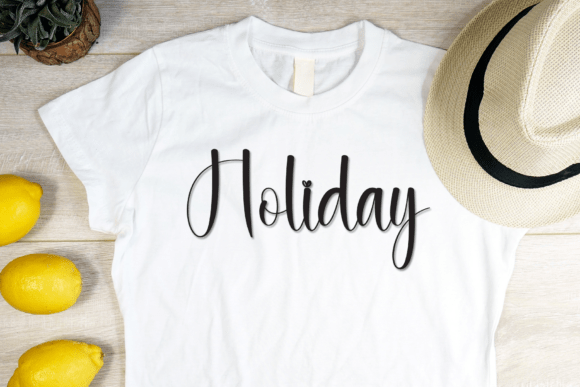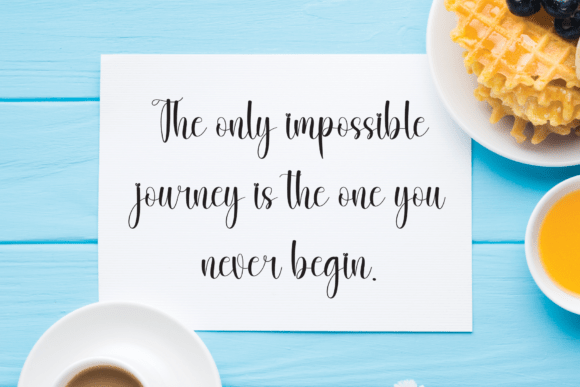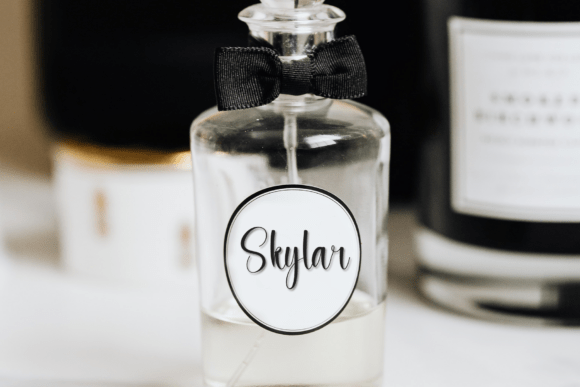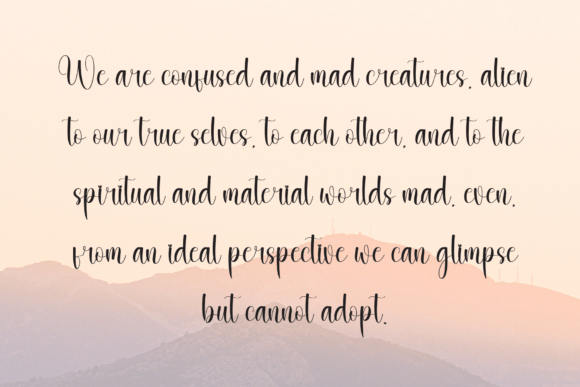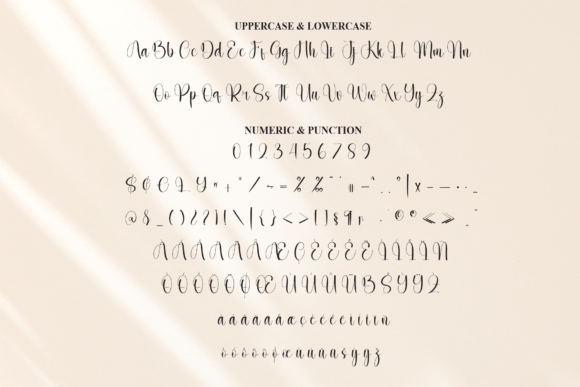
Introducing Family Font: A Delightful Handwritten Display Font
Are you looking for a font that can add a touch of warmth and friendliness to your design projects? Look no further than Family Font, a charming handwritten display font that is sure to capture the hearts of designers and crafters alike. With its unique and quirky allure, this font is perfect for creating heartfelt wedding invitations, personalized cards, and other designs that require a dash of whimsical charm.
The Perfect Blend of Playfulness and Elegance
Family Font is a carefully crafted font that strikes the perfect balance between playfulness and elegance. Its handwritten style is infused with a sense of fun and friendliness, making it ideal for designers who want to create designs that are both whimsical and sophisticated. Whether you’re working on a wedding invitation, a greeting card, or a packaging design, Family Font is sure to add a touch of personality and charm to your project.
Unique Characteristics of Family Font
So, what sets Family Font apart from other fonts? Here are a few of its unique characteristics:
• Handwritten style: Family Font has a beautiful, handwritten style that is both personal and inviting.
• Quirky allure: This font has a unique and quirky charm that is sure to capture the hearts of designers and crafters.
• Playful and elegant: Family Font strikes the perfect balance between playfulness and elegance, making it ideal for a wide range of design projects.
• Infused with warmth and friendliness: This font is infused with a sense of warmth and friendliness, making it perfect for creating designs that are both personal and inviting.
Uses for Family Font
Family Font is a versatile font that can be used for a wide range of design projects. Here are a few ideas to get you started:
• Wedding invitations: Family Font is perfect for creating beautiful and personalized wedding invitations that are sure to impress.
• Personalized cards: This font is ideal for creating personalized cards for special occasions, such as birthdays, anniversaries, and holidays.
• Packaging design: Family Font can add a touch of whimsy and charm to your packaging design, making your products stand out on store shelves.
• Social media graphics: This font is perfect for creating social media graphics that are both fun and engaging.
Why Choose Family Font?
So, why should you choose Family Font for your design projects? Here are a few reasons:
• Unique and quirky: Family Font has a unique and quirky allure that is sure to set your designs apart from the rest.
• Easy to read: This font is carefully crafted to be easy to read, making it perfect for designs that require a lot of text.
• Versatile: Family Font can be used for a wide range of design projects, from wedding invitations to packaging design.
• High-quality: This font is of high quality, making it perfect for professional design projects.
In conclusion, Family Font is a delightful and charming handwritten display font that is sure to capture the hearts of designers and crafters alike. With its unique and quirky allure, this font is perfect for creating heartfelt wedding invitations, personalized cards, and other designs that require a dash of whimsical charm. Whether you’re a professional designer or a crafter, Family Font is a great choice for any design project that requires a touch of playfulness and elegance.